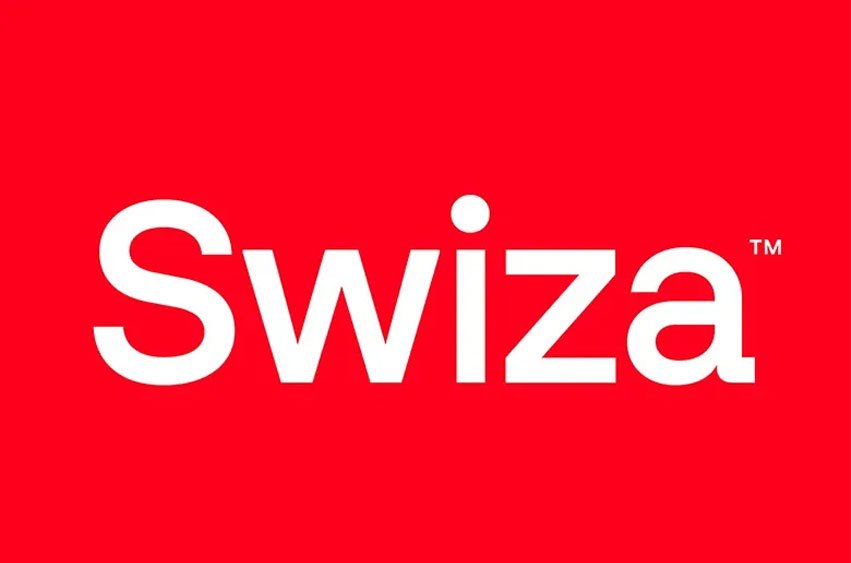
Swiza Font
Swiza Font is a fashionable and constant in sans serif typefaces intended for person who isn’t afraid to make statements. Swiza is user-centric, professional and modern which makes it fit well many different type of projects.
It comes in 14 style variants ranging from thin, light, bold, and even italic, thus making it possible to satisfy all your typographic requirements.